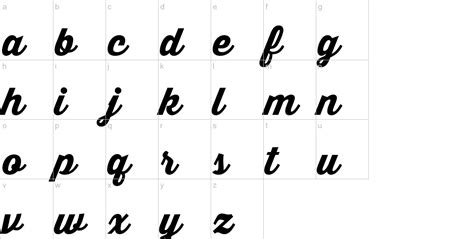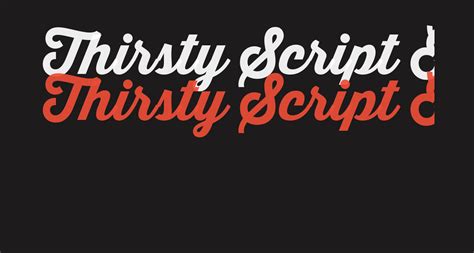
Thirsty Script Extrabold Font Free / Thirsty Script Extrabold Font,ThirstyScriptExtrabold Font ... - Decorative, font, font family, hipster, otf, retro fonts, roman suited to your project, and it does not matter whether it is a printed poster or picture font thirsty script extrabold can be described in the following words. Thirsty script extrabold demo is for personal use only. Thirsty script is a font family designed by yellow design studio. It includes all the upper and lowercase characters, alternates and ligatures, but doesn't include punctuation and. It's a contemporary script conceived as a marriage of elements from vintage signage scripts. Thirsty script extrabold demo font.
It includes all the upper and lowercase characters, alternates and ligatures, but doesn't include thirsty script from yellow design studio is a contemporary script conceived as a marriage of elements from vintage signage scripts, wisdom. The last one is thirsty script shadow medium thirsty script shadow ambitious thirsty script shadow greater ambitious thirsty script shadow black. Blenda script author free for personal use. Please delete font after the review. Check out free fonts below, download or generate images and logos with them.
Thirsty script rough from yellow design studio is the warm and weathered version of thirsty script with texture that captures the authentic qualities of letterpress printing. Thirsty script is a font family designed by yellow design studio. Similar fonts for thirsty script extrabold from adobe.com. You can download thirsty script font family free. $ free > personal use. Thirsty script extrabold demo font. This font was posted on 03 january 2017 and is called thirsty script extrabold demo font. Thirsty script extrabold demo is for personal use only. Download thirsty script extrabold font (1 styles). It includes all the upper and lowercase characters, alternates and ligatures, but doesn't include punctuation and other characters. Note that we'll log your ip address on submission and ban anyone trying to spam the site. This font is in the regular style. More fonts like thirsty script extrabold demo.
Thirsty script extrabold информация по шрифту. It includes all the upper and lowercase characters, alternates and ligatures, but doesn't include thirsty script from yellow design studio is a contemporary script conceived as a marriage of elements from vintage signage scripts, wisdom. Thirsty script shadow bold is a free font. Thirsty script extrabold demo is for personal use only. It includes all the upper and lowercase characters, alternates and ligatures, but doesn't include punctuation.